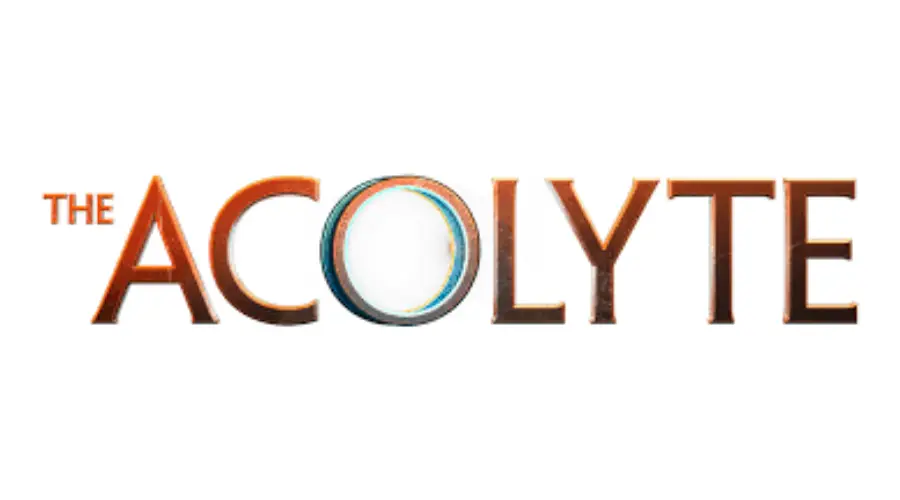
The Acolyte Font is a distinctive typeface that has gained attention for its unique design and relevance to branding, particularly in the context of the Star Wars series, The Acolyte. This font exudes a futuristic and mysterious vibe, making it a perfect choice for logos, titles, or any design that aims to convey a sense of intrigue and sophistication.
Similar Fonts to The Acolyte Font
If you’re looking for fonts that resemble The Acolyte Font or capture its essence, here are some excellent alternatives:
Monesque by S. John Ross – While not identical, it carries a similar vibe with its elegant and futuristic design.
Penumbra Flare Regular by Lance Hidy – This is the original font used in the logo of The Acolyte. It’s sleek, modern, and perfect for creating a high-impact visual identity.
Lovelo Black by Renzler Design – A similar font that shares the bold and geometric characteristics of The Acolyte Font.